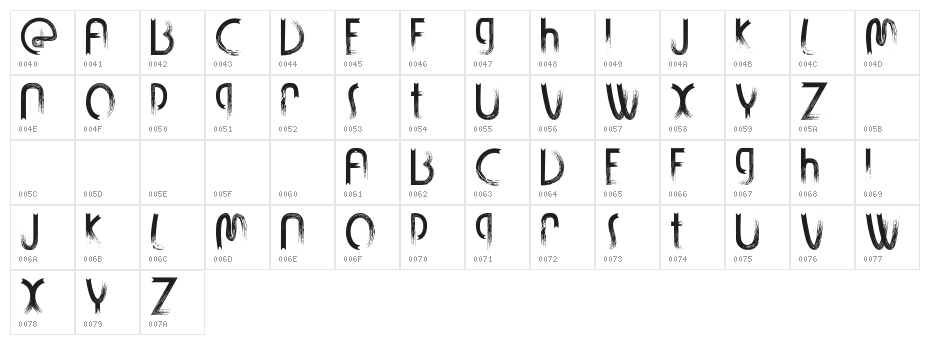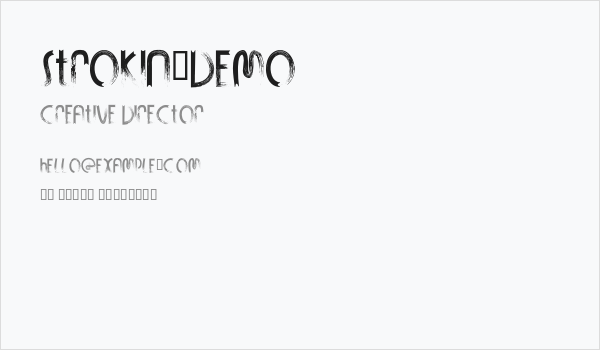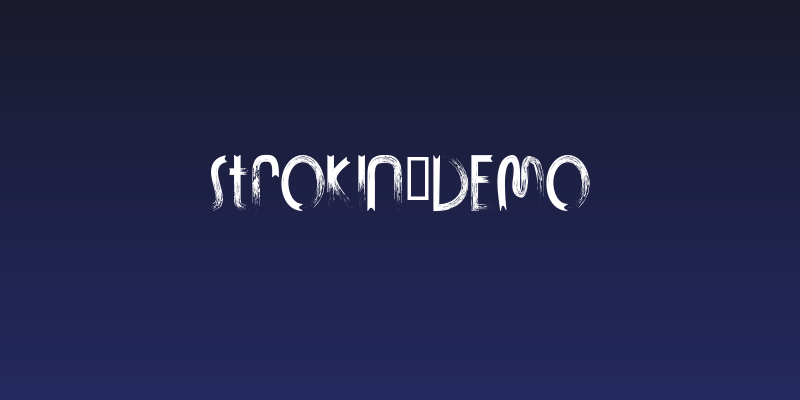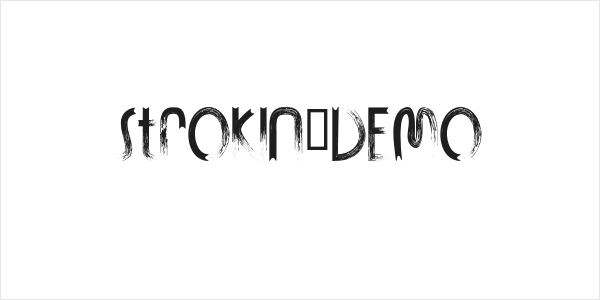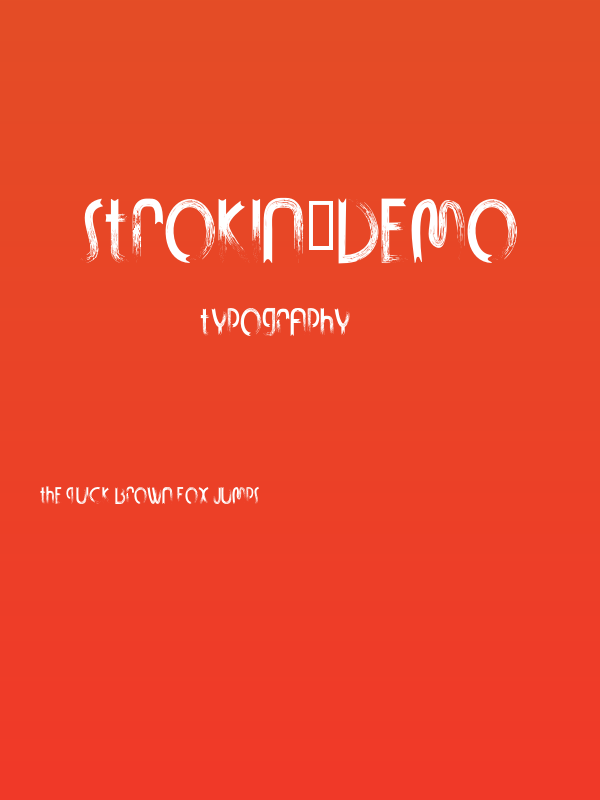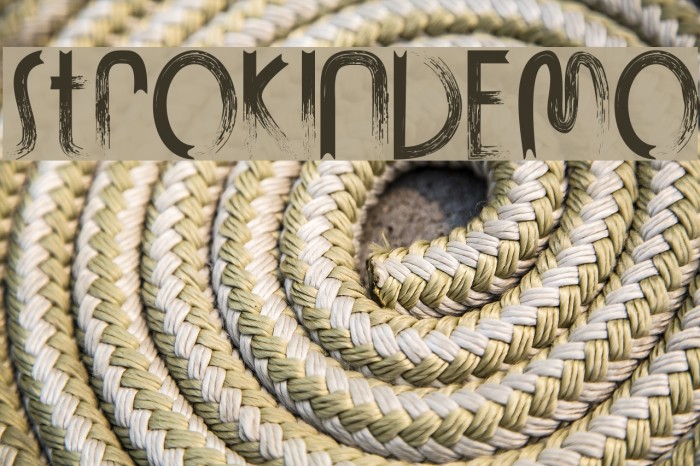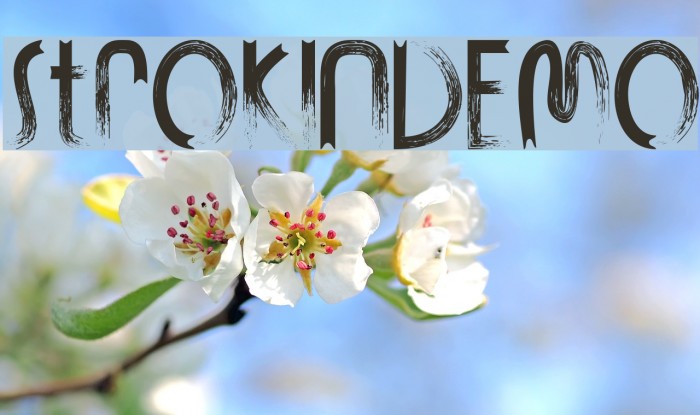
STROKIN-DEMO Font
STROKIN-DEMO Description
This font features a bold and artistic design with a distressed, brushstroke effect that gives it a dynamic and edgy appearance. The uppercase and lowercase letters maintain a consistent style, with each character exhibiting unique, rough textures that suggest movement and creativity. The numbers and special characters follow the same aesthetic, ensuring a cohesive look across all text elements. This font is ideal for projects that require a strong visual impact and a modern, artistic flair.
| Overall Style | Modern, Artistic |
| Proposed Projects | Ideal for album covers, posters, branding materials, and creative digital designs. |